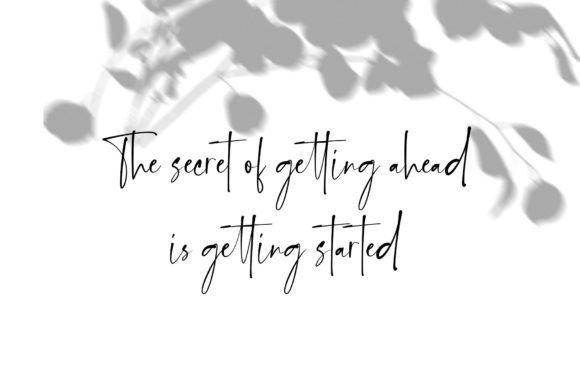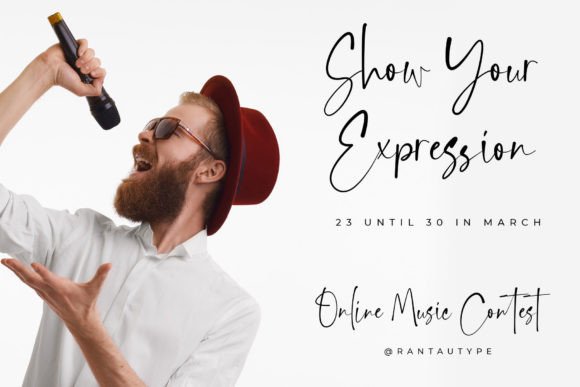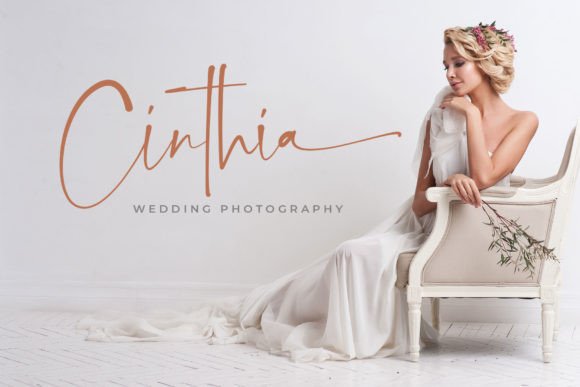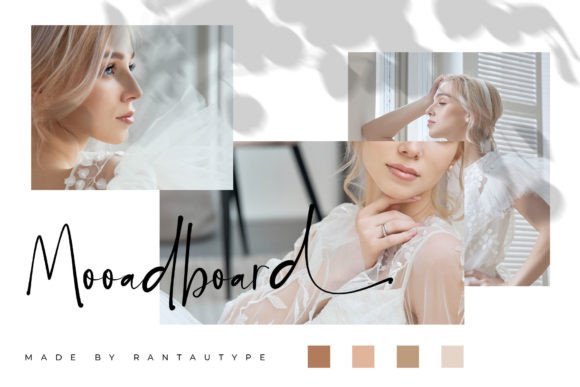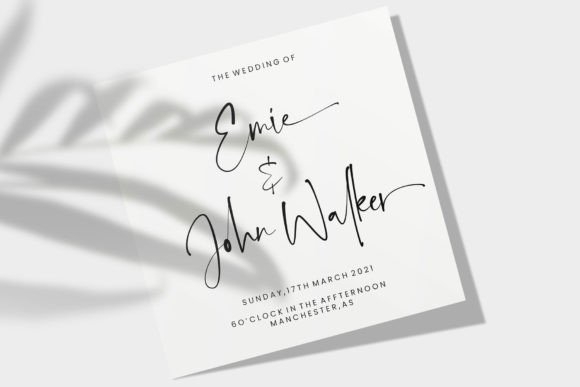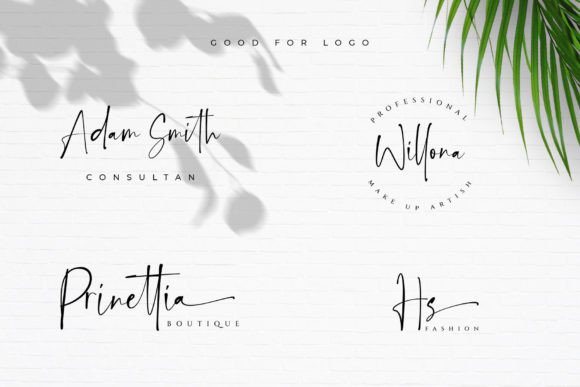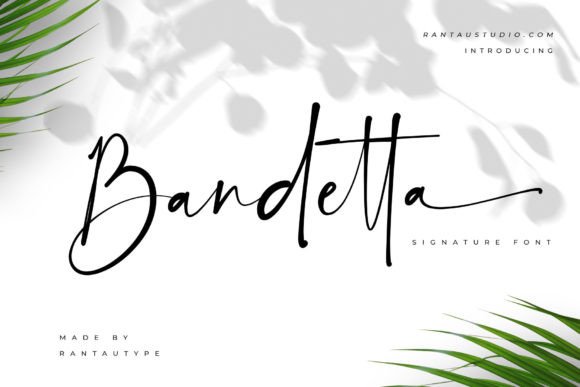
Introducing Bandetta Font: Elevate Your Designs with Style and Sophistication
In the world of design, typography plays a crucial role in conveying messages, evoking emotions, and creating lasting impressions. For designers and crafters seeking a font that embodies modernity, readability, and style, Bandetta Font is an exceptional choice. This stunning script font is poised to revolutionize your design projects, offering a perfect blend of professionalism and aesthetic appeal.
What Makes Bandetta Font Stand Out?
Bandetta Font is a stylish and professional script font designed to cater to the diverse needs of designers and crafters. Its modern and catchy appearance makes it an ideal selection for a wide range of applications, from watermarks on photography to signature logo designs, quotes, album covers, magazines, business cards, and numerous other design projects.
The font’s exceptional readability ensures that your message is conveyed clearly and effectively, making it perfect for both digital and print materials. Whether you’re working on a personal project or a client’s commission, Bandetta Font is sure to impress with its elegant and sophisticated feel.
Key Features of Bandetta Font
• Modern and Stylish: Bandetta Font boasts a contemporary design that will instantly elevate your projects with its fresh and trendy look.
• Highly Readable: The font’s clear and legible design ensures that your text is easily readable, making it perfect for a variety of applications.
• Versatile: Bandetta Font can be used for a wide range of design projects, including watermarks, logos, quotes, album covers, magazines, business cards, and more.
• Easy to Use: The font is user-friendly and can be easily integrated into your design workflow, saving you time and effort.
Design Applications for Bandetta Font
Bandetta Font’s versatility makes it an excellent choice for various design projects. Here are some of the ways you can utilize this exceptional font:
• Watermarks on Photography: Add a touch of elegance to your photographs with Bandetta Font, creating professional-looking watermarks that protect your work.
• Signature Logo Designs: Create stunning logos that make a lasting impression with Bandetta Font’s stylish and modern design.
• Quotes and Typography: Use Bandetta Font to create visually appealing quotes, posters, and typographic designs that inspire and engage.
• Album Covers and Music Design: Give your music projects a professional edge with Bandetta Font, perfect for album covers, track listings, and promotional materials.
• Magazines and Publications: Elevate your magazine and publication designs with Bandetta Font, ideal for headlines, subheadings, and body text.
• Business Cards and Stationery: Create professional-looking business cards, letterheads, and other stationery materials with Bandetta Font.
Why Choose Bandetta Font?
With Bandetta Font, you can expect a high level of quality, style, and versatility. This font is designed to help you create stunning designs that leave a lasting impression. By choosing Bandetta Font, you’ll benefit from:
• Unique and Professional Designs: Stand out from the crowd with Bandetta Font’s distinctive and professional design.
• Time-Saving: The font’s ease of use and versatility save you time and effort, allowing you to focus on other creative aspects of your project.
• High-Quality Typography: Bandetta Font offers exceptional typography that enhances your design’s overall aesthetic and effectiveness.
In conclusion, Bandetta Font is an exceptional script font that offers a perfect blend of style, sophistication, and readability. Whether you’re a designer, crafter, or DIY enthusiast, this font is sure to elevate your design projects to new heights. With its versatility, ease of use, and high-quality design, Bandetta Font is an excellent addition to your typographic collection.
Font Name Bandetta Font
Author RantauType